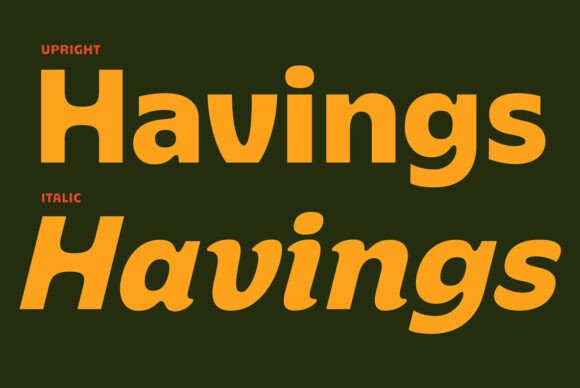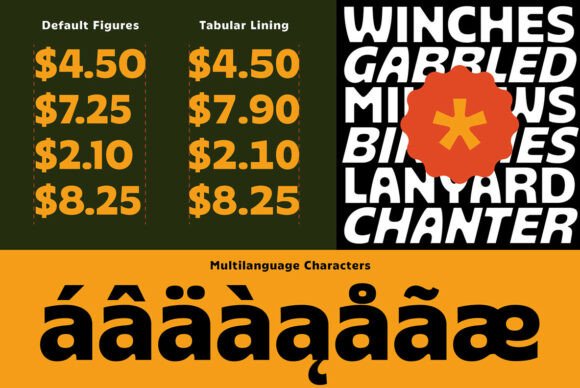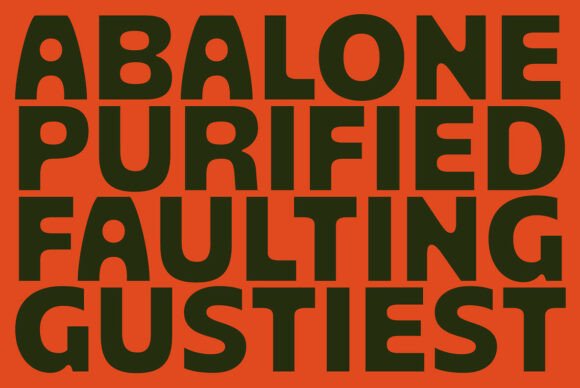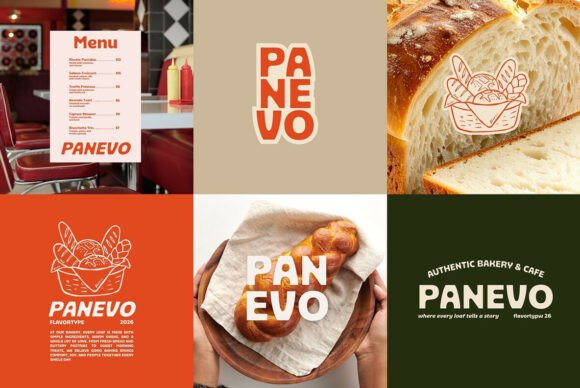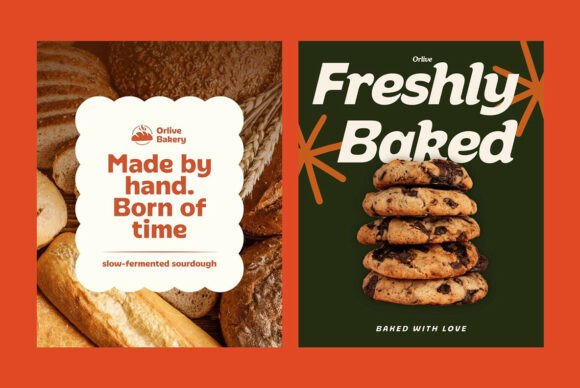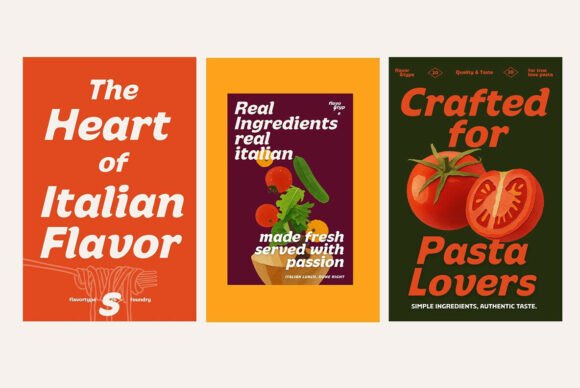
Introduction to Orlive Font Font
Fonts play a crucial role in design, and the Orlive Font font is a typeface that brings both character and versatility to any project. Whether you’re working on a branding project, a website, or a print design, the Orlive Font font offers a unique style that can elevate your work.
Orlive is a warm and expressive display typeface crafted to infuse personality into every layout.
With its bold curves, soft corners, and playful rhythm, Orlive radiates confidence, friendliness, and a rich flavor It offers two distinct styles: Upright for strong, impactful headlines and Italic for a dynamic, energetic feel.
Key Features of Orlive Font Font
Why Choose Orlive Font Font?
The Orlive Font font is more than just a typeface – it’s a design tool that helps you communicate your message with style and clarity. Its unique character set and versatile design make it suitable for a wide range of applications, from elegant invitations to bold headlines.
With its carefully crafted letterforms and balanced proportions, the Orlive Font font ensures readability and visual appeal across all mediums.
What makes Orlive Font font special?
The Orlive Font font stands out with its unique design, exceptional readability, and versatility across various design applications.